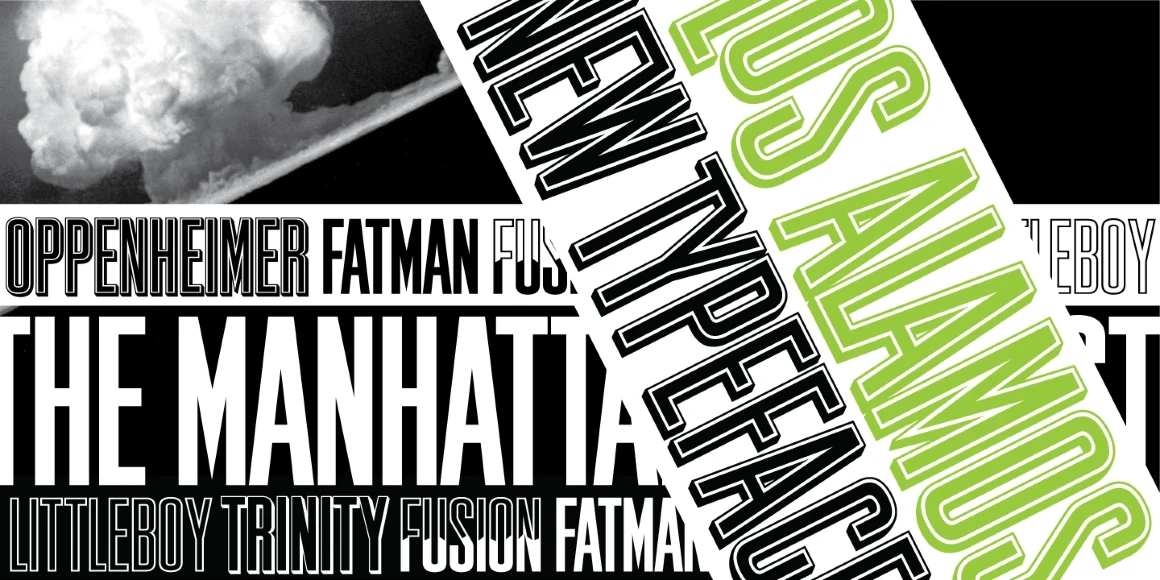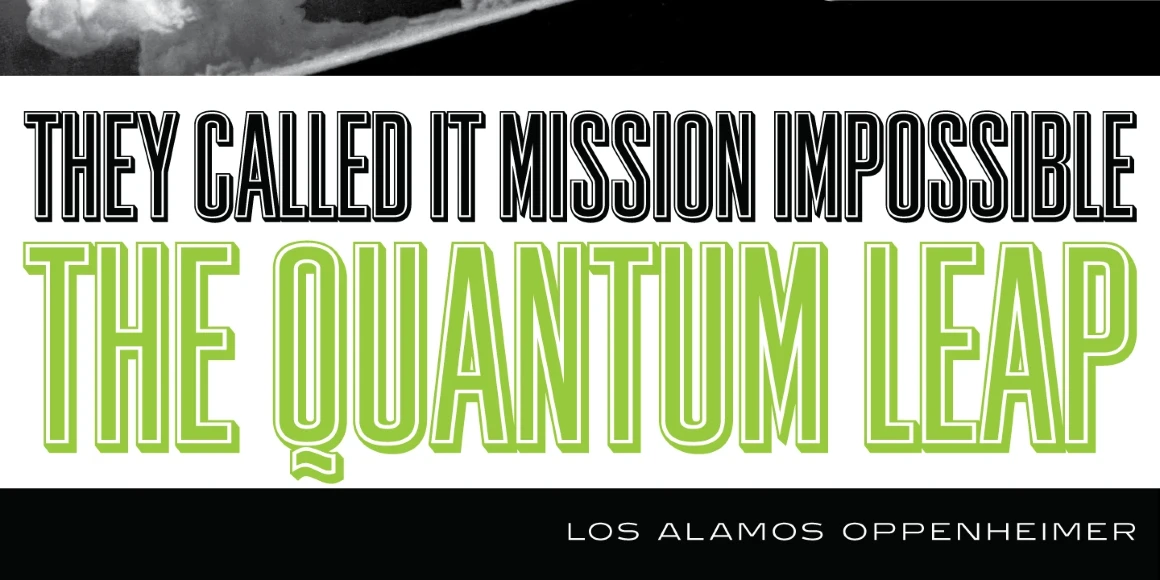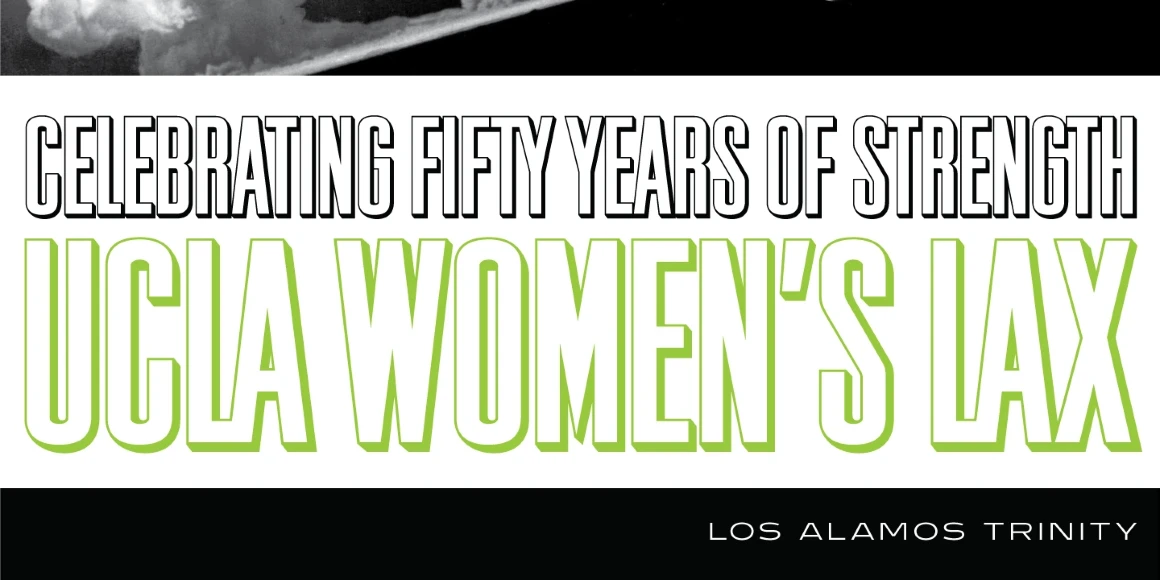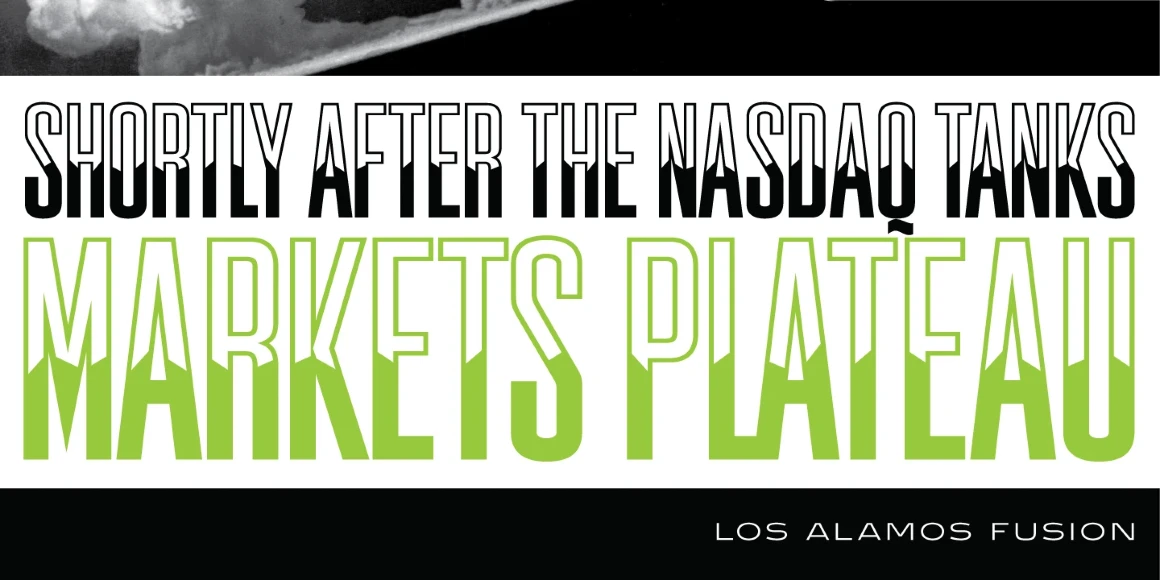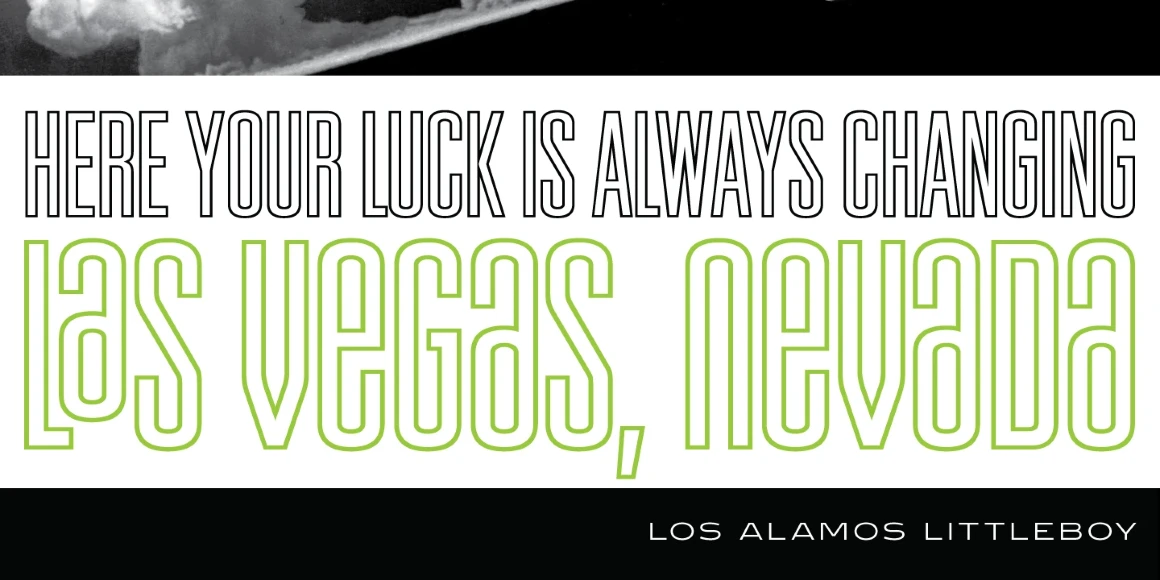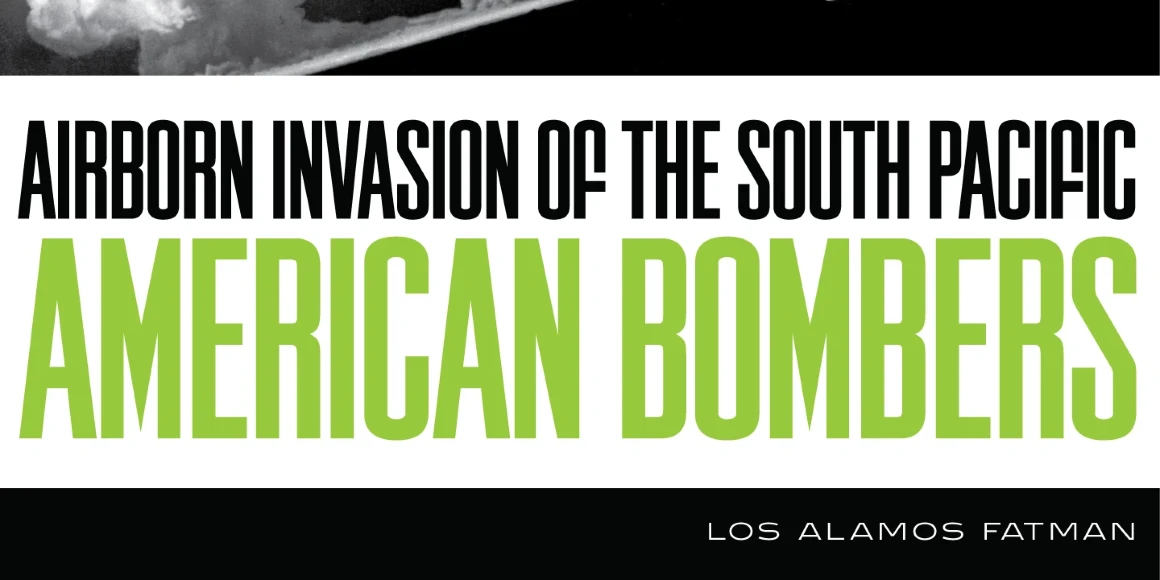
Los Alamos
Los Alamos is a sans serif decorative typeface that was designed in 2007 by Steve Jackaman (ITF). It was originally designed as a complementary typeface to ITF’s Grand Canyon typeface, but it evolved into a fully-fledged, unique type family in its own right. The typeface family incorporates an interchangeable unicase and is programmed with contextual substitutions, giving designers numerous options and looks to choose from. It includes over 800 glyphs plus ligatures and provides support for over 130 languages. Los Alamos is a powerhouse typeface for any designer’s arsenal, ready to blast socks off with its thermonuclear presence!
• Chinese Pinyin
• Vietnamese